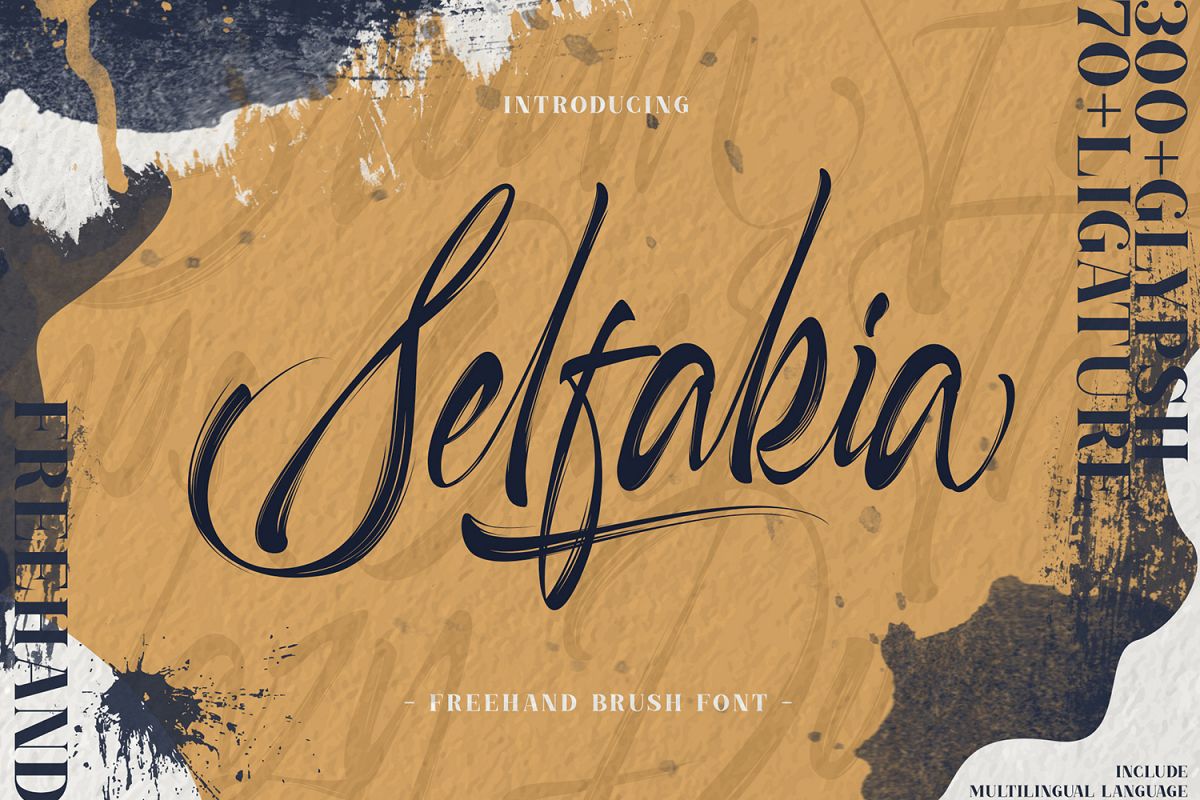
Selfakia Brush Font
Selfakia Brush Font is a Free Hand Brush font, perfect for logo design, branding, clothing design, signage, posters, wedding invitations and so much more! Also many more alternative characters, with 70+ ligature.